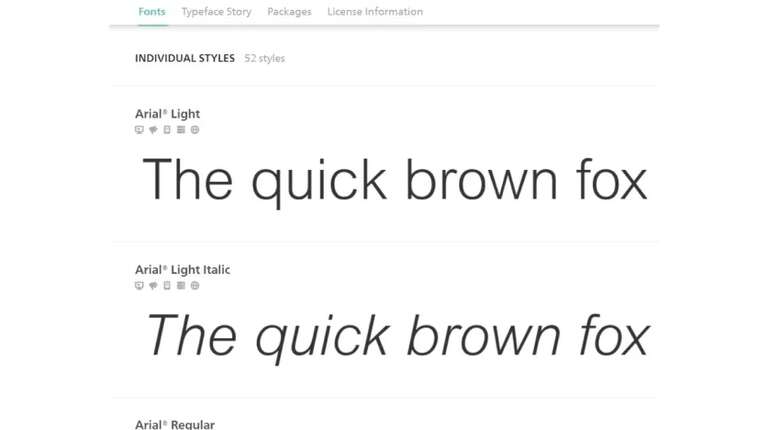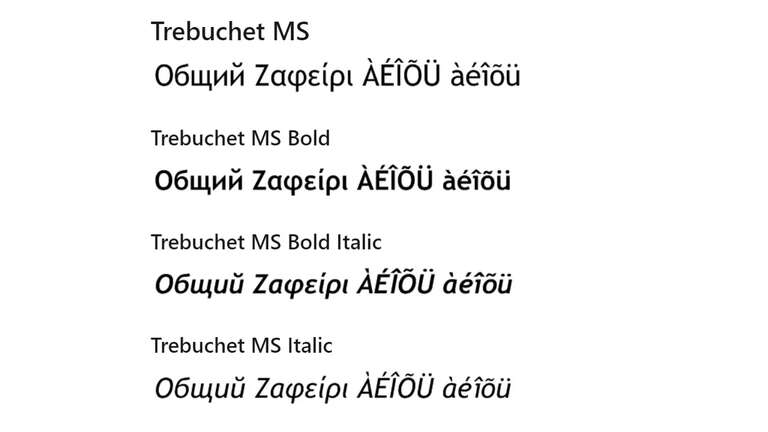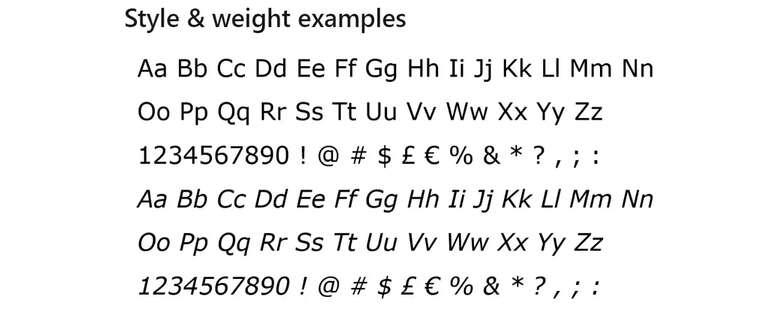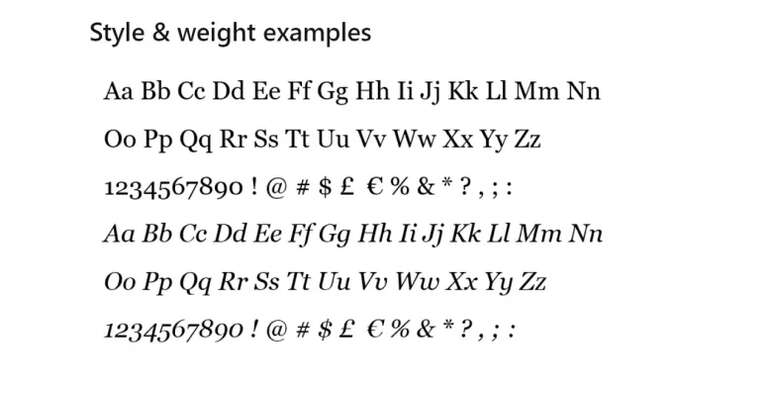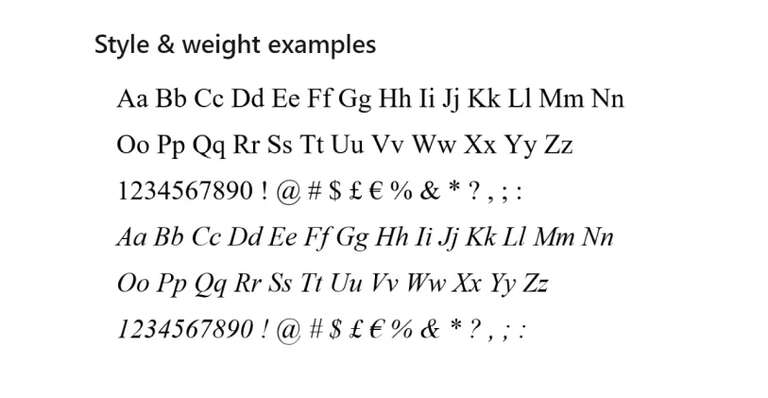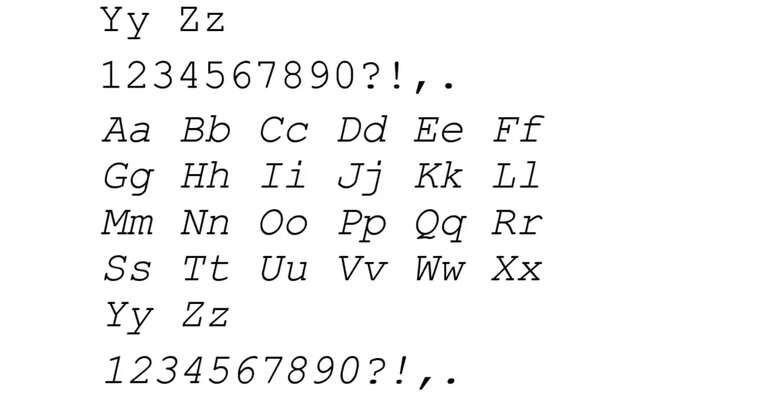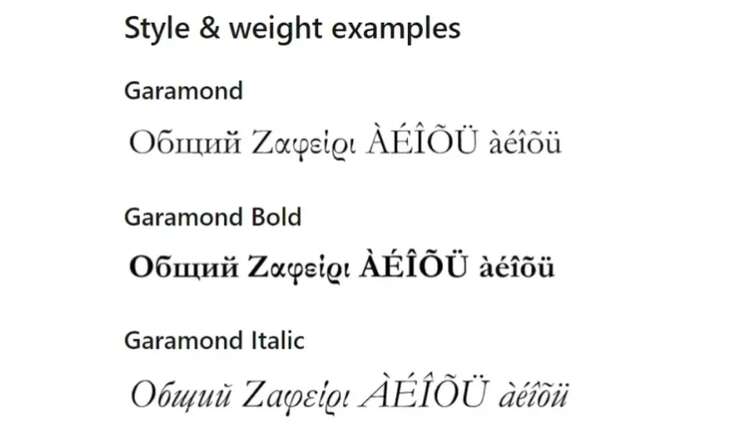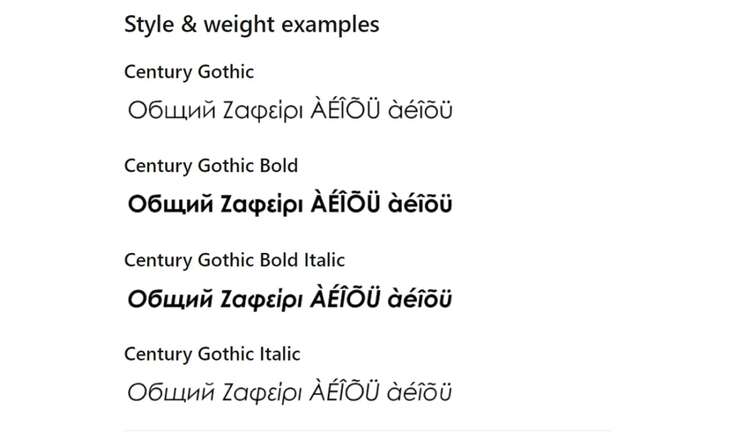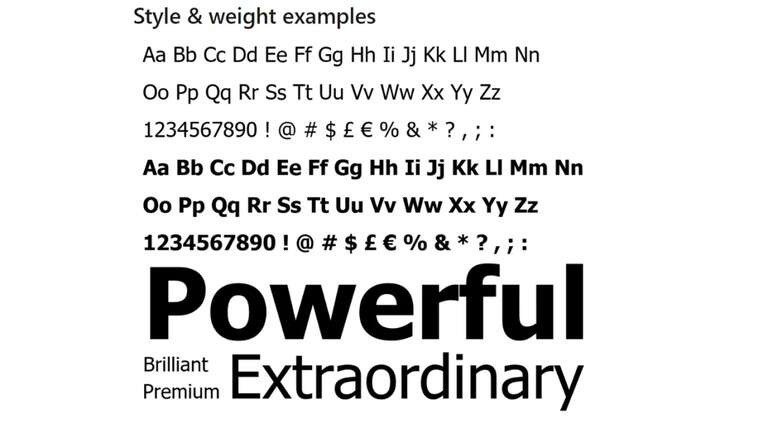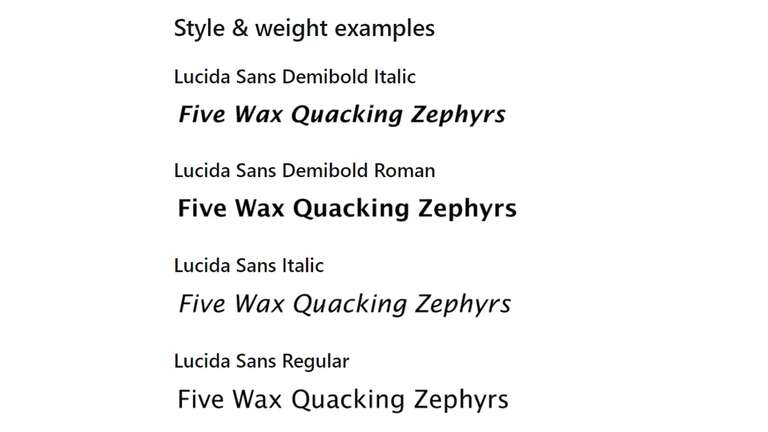
Fonts are an essential part of web design and can make or break the look and functionality of your website, thus it's important. It's fascinating to note that fonts are much more than just putting text on a web page or for context; there's a lot more to fonts that defines how we can use them.
At first glance, you may not associate the relevance of fonts to your design until you actually begin to create. The font that you choose for your heading, for example, must have a certain style, spacing, legibility, texture, load time, and so on.
In this article, we will go through "Web Safe Fonts." If you haven't heard of web-safe fonts before, it's probably the last thing that would come to mind and if you have heard about it but haven't had the opportunity to go over the basics, we'll go over the fundamentals with you. Before delving into the definition, we may discover the meaning of web safe fonts by examining each term.
Let's start with the word:
Safe: This can be described simply as free of error or risk.
Web (World Wide Web): Simply referred to as the Web, is a subset of the Internet that consists of pages that may be browsed using a Web browser.
Let's get started and look at the intriguing topic of web-safe fonts, what distinguishes a web-safe font? And what would happen if you used typefaces that were not web-safe?
What are Web-Safe Fonts?
Web-safe fonts are typefaces that are included on computers or devices regardless of the operating system or machine. Web-safe fonts are pre-installed fonts, they come with computers and are available on a wide range of devices.
Web-safe fonts, as opposed to web fonts, which are fonts specifically produced for websites from an external supplier such as Google Fonts or a site's web hosting, aren't as unique in style, they aren't as artistic, but they are trustworthy with fast load times because they are available on most computers and are common to most devices.
This means that the majority of systems with pre-installed fonts only have a handful in common. For example, a mac os and a windows os both have fonts like TimesNewRoman, Georgia, Arial, and Verdana in common, but they also have pre-installed fonts that aren't shared in common like the mac os with fonts like Futura, Monaco, and Didot and the windows os with pre-installed fonts like Cambria and Consola.
Pros and Cons of Web-Safe Fonts
Pros
Fonts can be adapted to any browser and device and you can continue to use the same HTML text.
Web designers and developers who use these typefaces ensure that the intended font will always display properly on a web page.
Designers may create a rich, personalized look while keeping the text easily modifiable for style and content modifications.
Cons
Limited in variety
Categories Of Web-Safe Fonts
The web-safe fonts we'll be highlighting are divided into different typeface categories: Serif, sans-serif, monospace, cursive, fantasy, and MS fonts:
Serif
Serifs are tiny decorative strokes that stick out from the letter's main body in these typefaces. In physical, printed versions, serif fonts are simpler to read because the serifs direct the viewer's attention from character to character. Times New Roman is one of the serif typefaces.
Sans-serif
Serifs are not present in these typefaces. Because they are easier to read on screens, sans-serif fonts are more commonly used in website copy. A sans-serif typeface is Arial.
Cursive
These fonts are designed to look like human calligraphy, with the letters flowing together. In contrast to block letters, it is often used to make writing speedier.
Monospace
This describes fonts that have uniform character spacing. One-line fonts include Courier.
Fantasy
These are fonts that are highly stylized and beautiful.